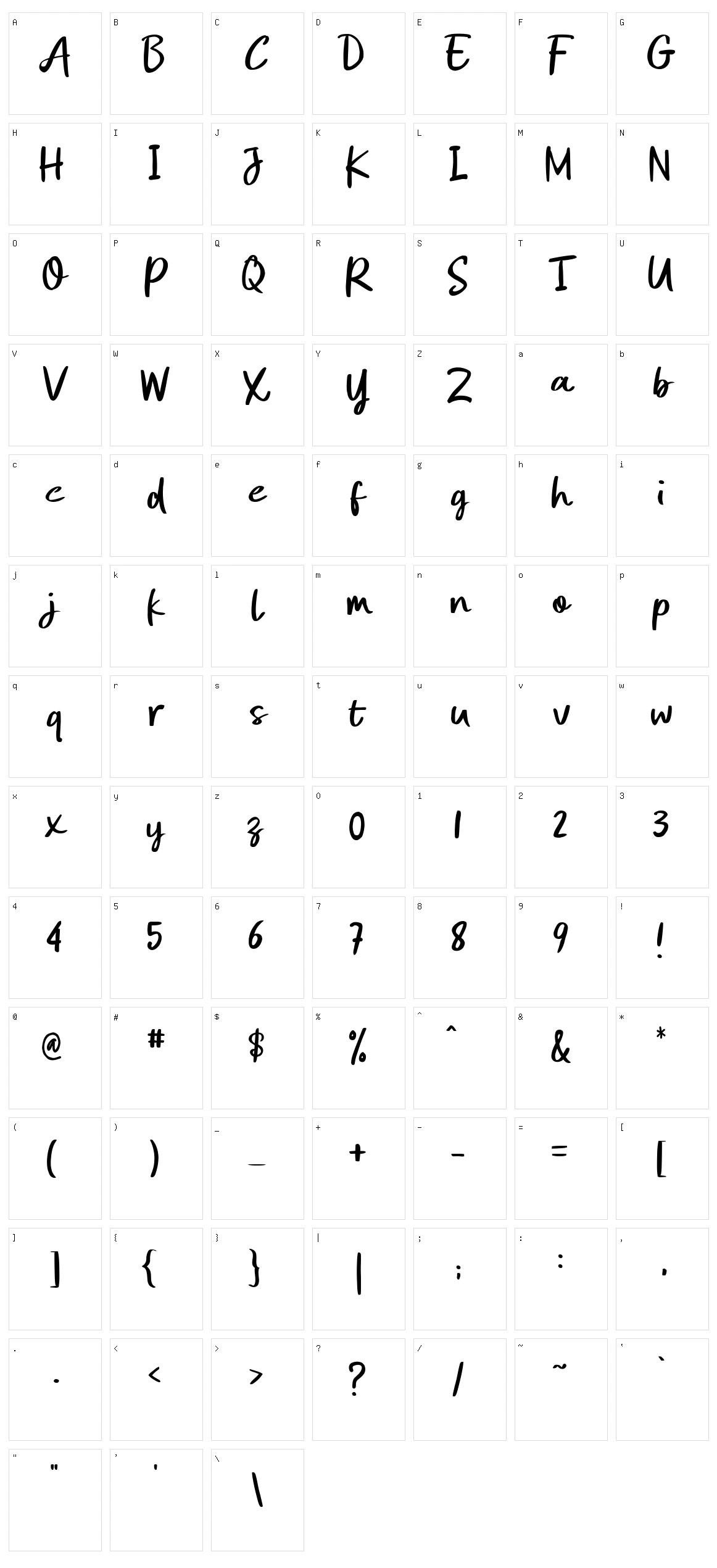
The free font Santan Kelapa is carefully designed by Steven Joss, showcasing a thoughtful balance of creativity and usability and falls under the Script font style. When you download the ZIP file, it contains only 38.72 KB of font files, making it lightweight and quick to download. Please review the license details below to understand permitted usage and distribution rights. If license information is not available, we recommend using this font for personal projects only or contacting the author directly for commercial usage permissions.